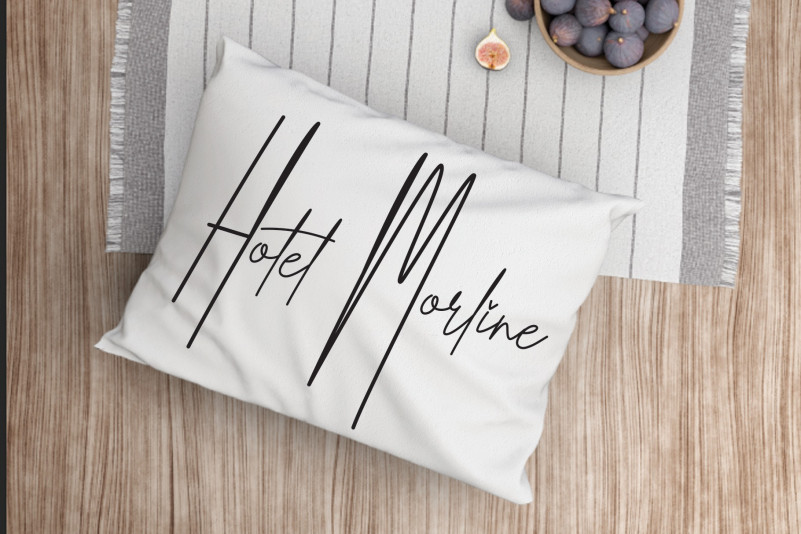
Kylie Jeslyn Script Font
Kylie Jeslyn – Handwritten Fonts will be perfect for many different projects such as logos & branding, invitation, poster, flyer, wedding designs, social media posts, advertisements, product packaging, product designs, label, photography, watermark, special events or movie poster title just like what I did on the preview above.